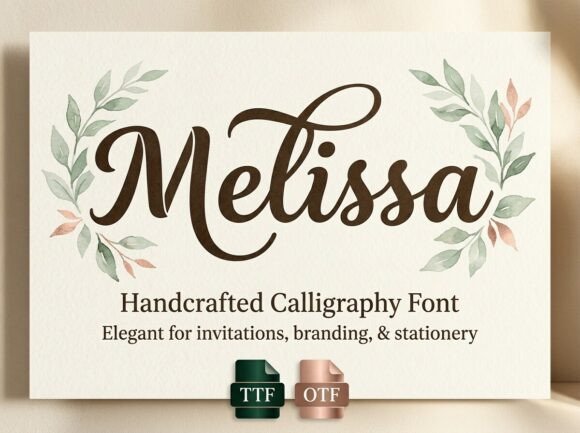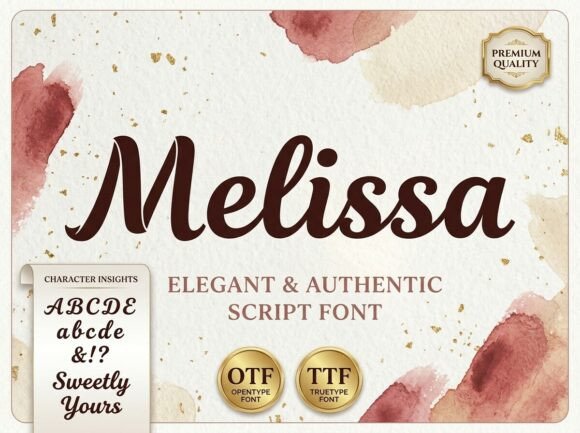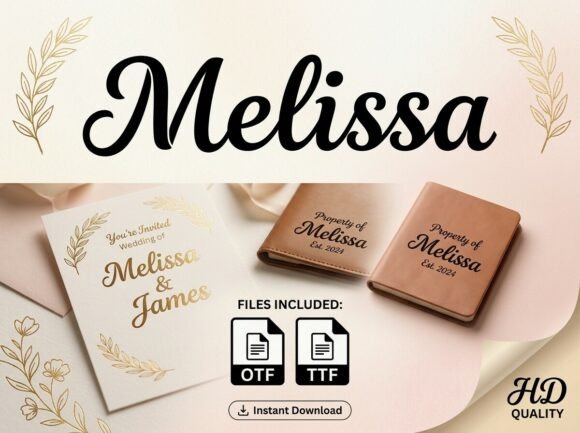
Introduction to Melissa Font
Exude a sense of timeless sophistication with Melissa, a premier calligraphy script designed for the most meaningful of occasions.
Characterized by its fluid, rhythmic baseline and gracefully elongated loops, Melissa captures the artisanal charm of a master calligrapherโs pen Every character is designed to flow seamlessly into the next, providing a custom-lettered look that anchors your design in pure, effortless elegance.